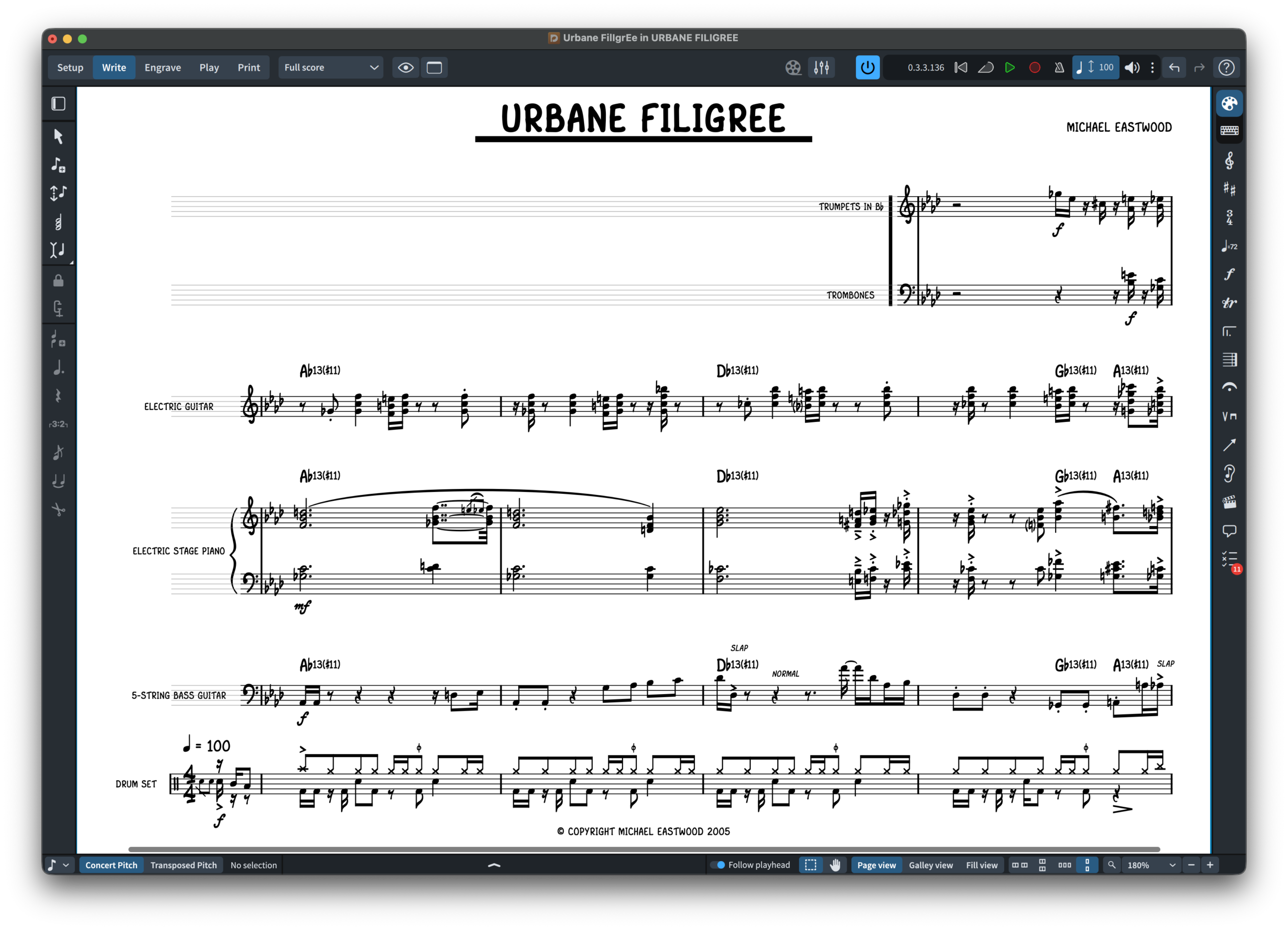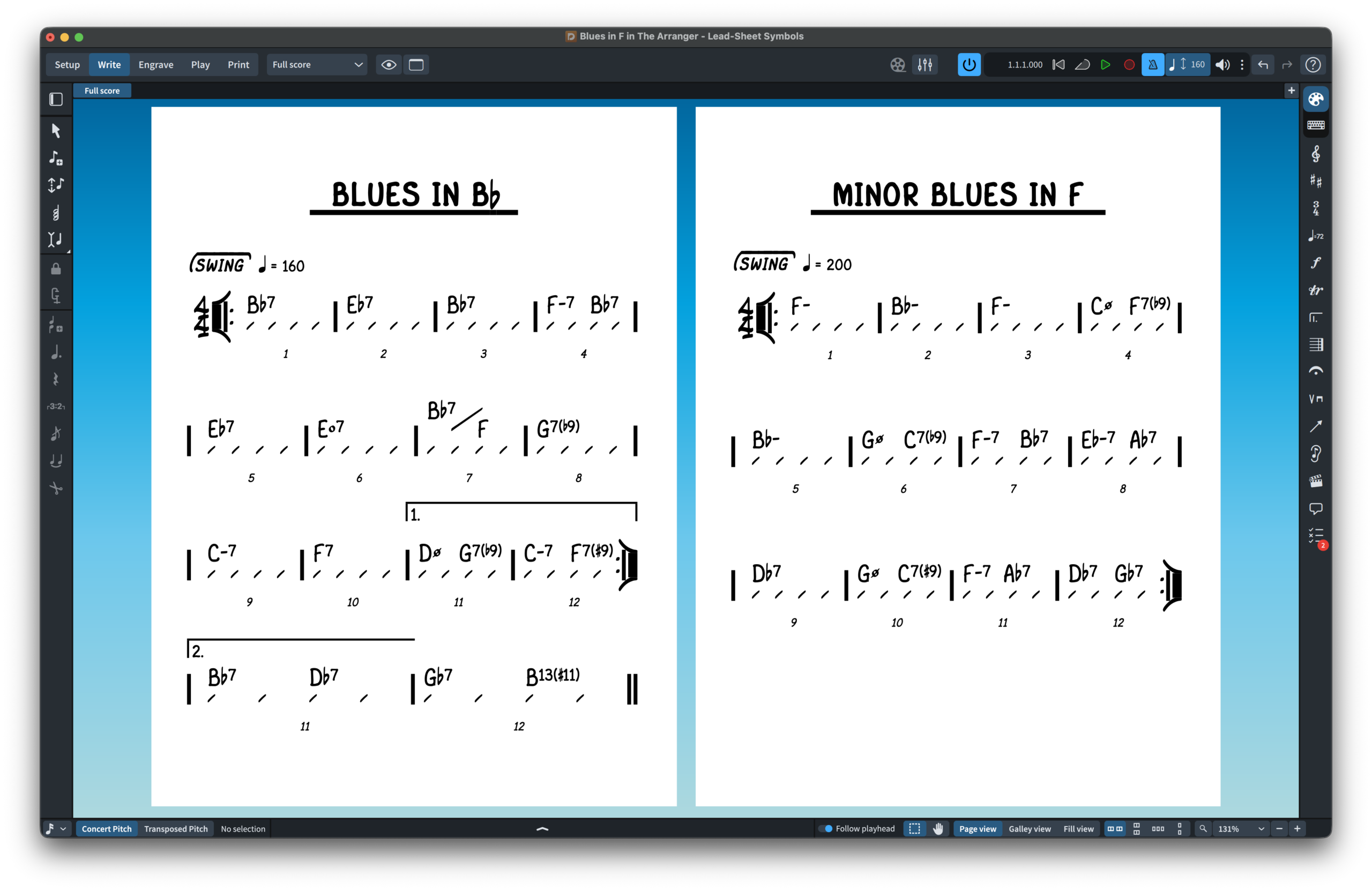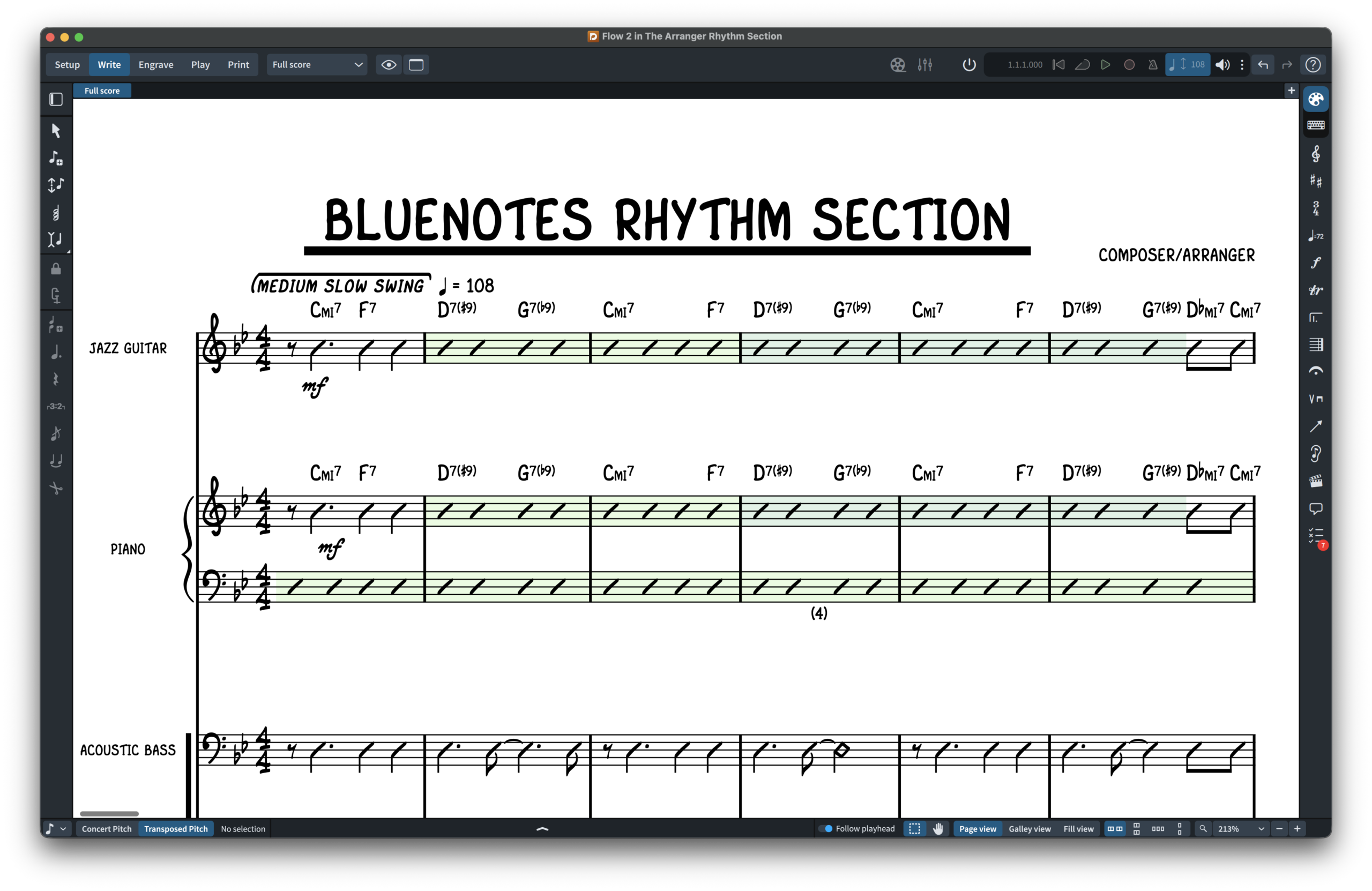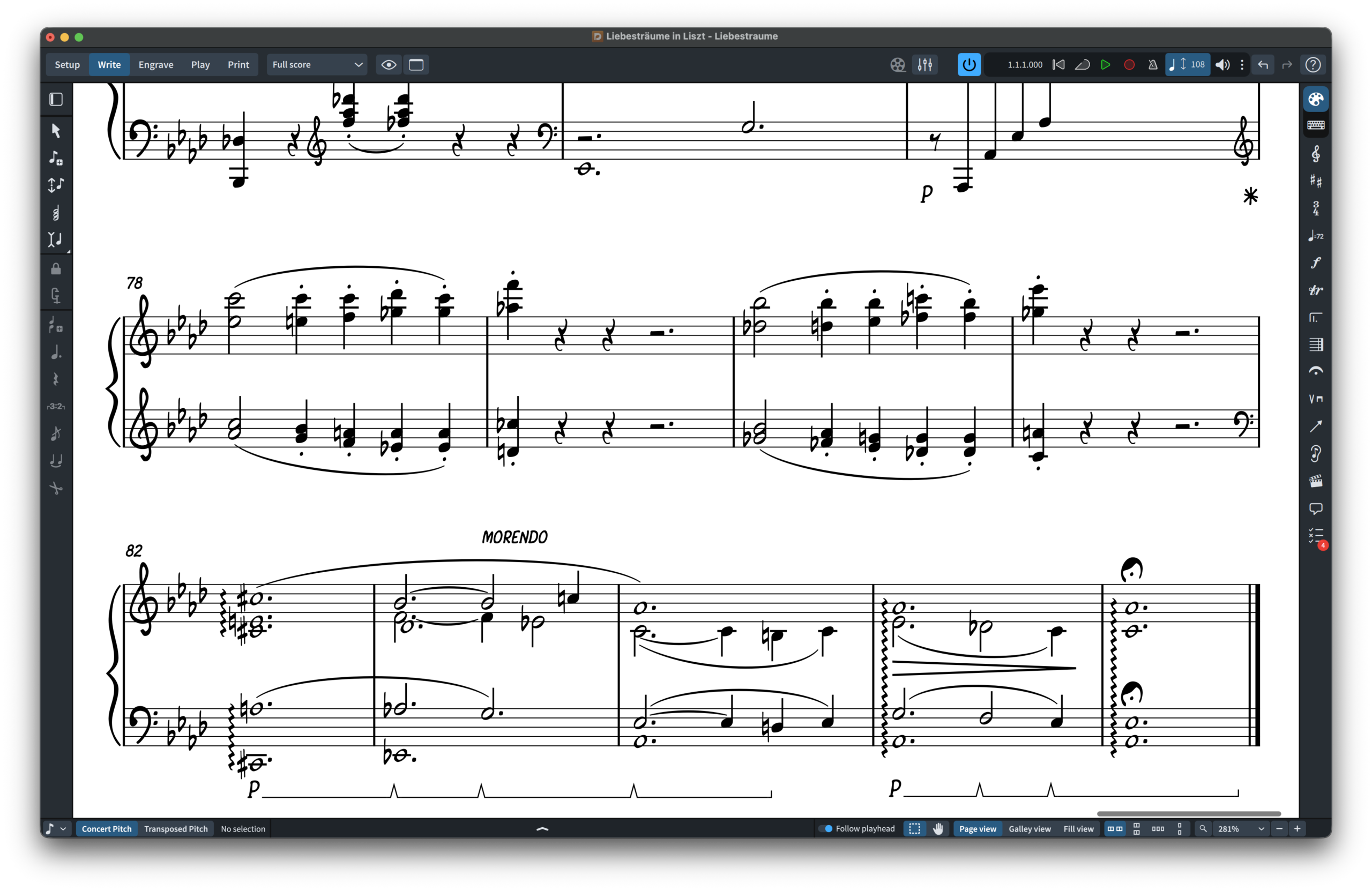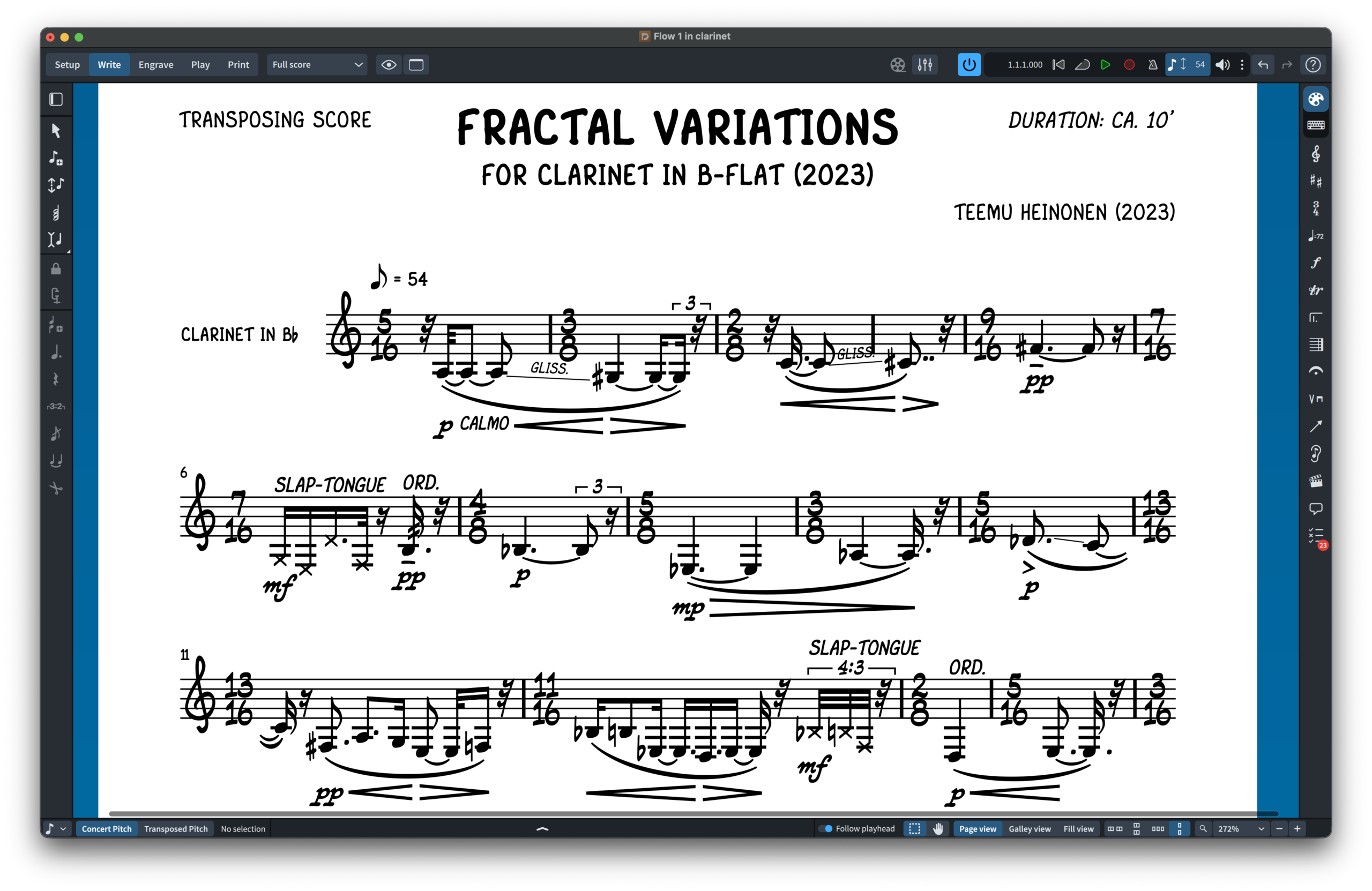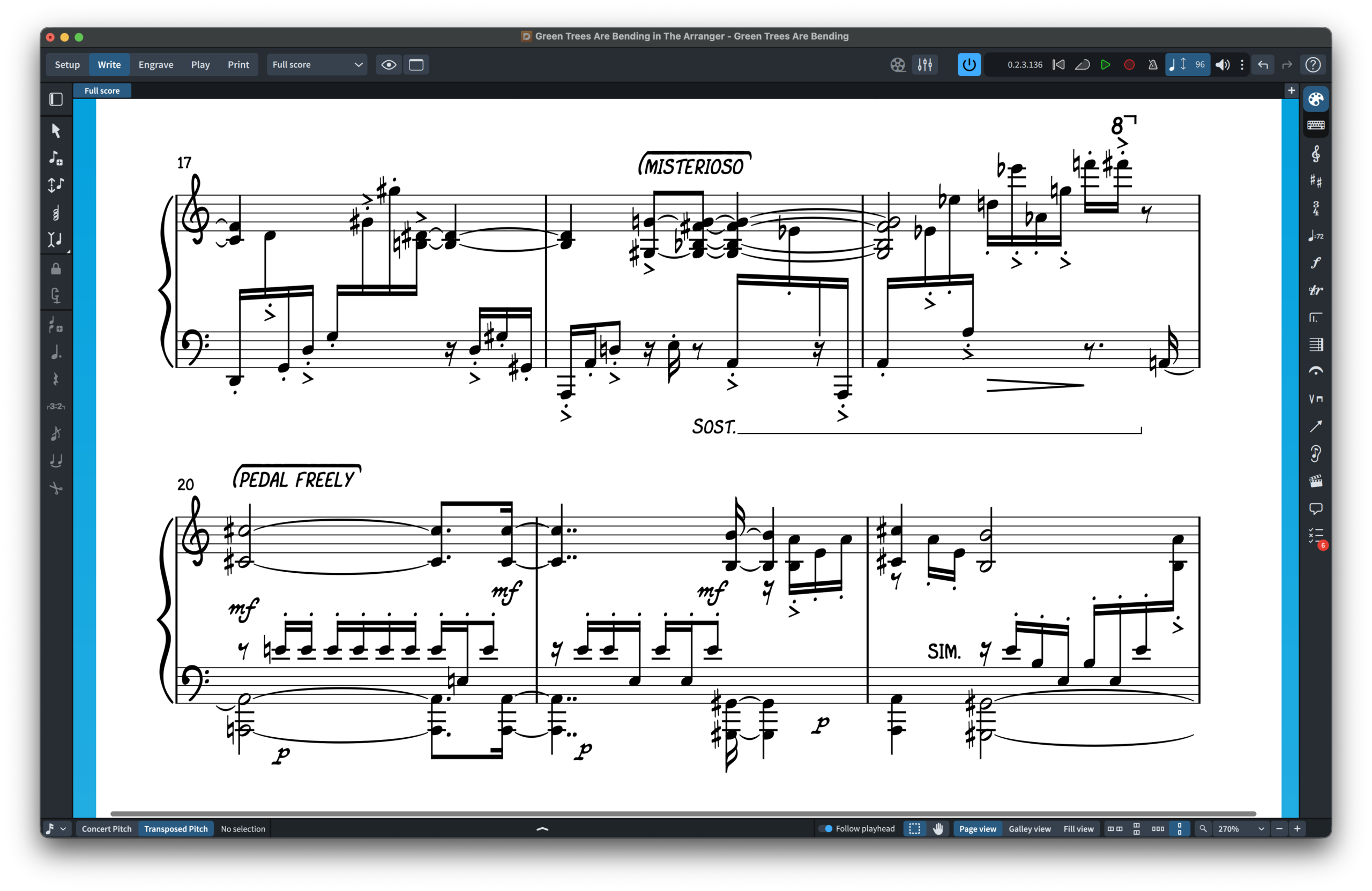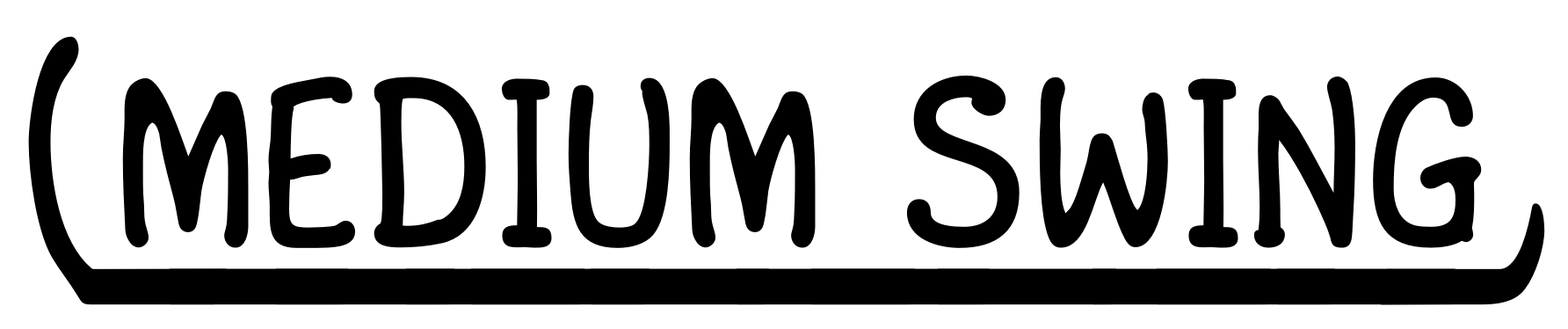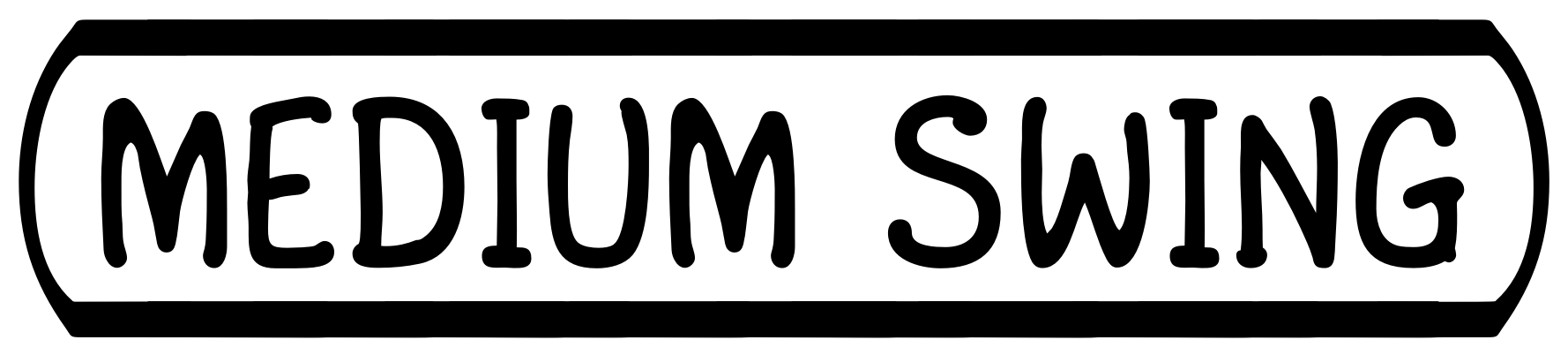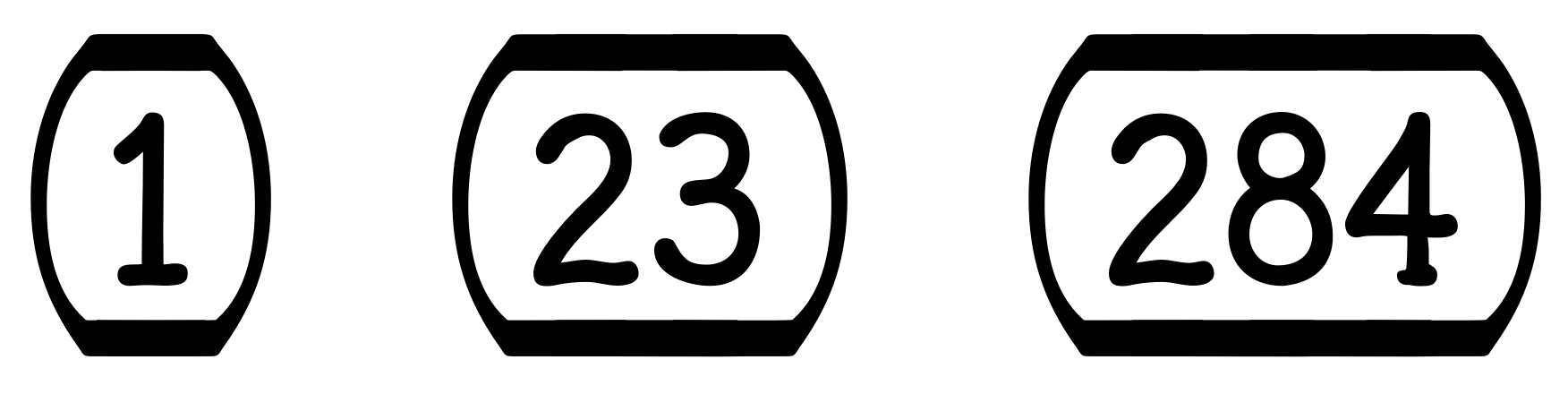
Meet The Arranger: The Handwritten SMuFL Font Your Scores Have Been Waiting For
A brand-new handwritten music font family for Dorico, Finale v27+ and MuseScore 4.6+ — built to give your notation the warmth and personality of classic hand-copied scores.
10 Text Fonts Included
A Score That Feels Human Again
There is something about a hand-copied score that no mechanical font has ever quite captured — the confident ink of a Broadway copyist, the flowing clarity of a jazz chart, and the lived-in personality of a West Coast studio arrangement. The Arranger was built to bring that feeling back.
This is not a novelty font or a stylistic shortcut. The Arranger is a fully professional SMuFL music font family, engineered to work natively inside today’s leading notation software. Every clef, notehead, accidental, articulation and dynamic has been drawn to feel natural together — warm enough to carry personality, clean enough to survive the rehearsal room.
The visual DNA of The Arranger draws from the golden era of Broadway and jazz score preparation — the elegant, practical hand-lettering style of studio copyists who turned out thousands of parts with speed, clarity and unmistakable character. The goal was never mere imitation. It was to distil that tradition into something genuinely usable inside Dorico, Finale and MuseScore today.
Built for the Way You Actually Work
The Arranger is fully focused on modern notation workflows. Install it, select it as your music font inside your notation program, and your entire score immediately adopts the handwritten character — no manual graphic work, no workarounds, no exporting to a design application.
It is compatible with Dorico, Finale v27+ and MuseScore 4.6+, making it accessible to the widest possible range of professional notation users.
Whether you are preparing a jazz big band chart, a Broadway-style pit arrangement, an intimate lead sheet, a rhythm section part or a full concert score with a more personal visual identity, The Arranger gives your notation a distinctive handwritten voice — without ever leaving your software.
Two Weights, One Consistent Voice
The Arranger ships as a family of two SMuFL-compliant music fonts, giving you real creative flexibility depending on the feel of your project.
The Arranger
The main weight. Strong, confident and highly readable — ideal when you want the full bold presence of a professional Broadway or studio copyist. This is the font that owns the page.
The Arranger Lighter
A more refined and open interpretation of the same character. Perfect when you want a lighter handwritten texture — spacious, elegant and suited to more intimate or delicate scores.
Both PDF samples use the same musical material so you can compare page colour, texture and visual weight directly.
10 Matching Text Fonts — A Complete Score Style
Most notation fonts only replace the music symbols. The Arranger goes further. The package includes 10 matching jazz-style text fonts designed to work alongside the music notation fonts and keep your entire score visually coherent.
Titles, tempo markings, rehearsal marks, boxed instructions and performance directions can share the same handwritten personality as the notation itself. The result is a complete score style, not just a font swap.
Example 4 — Matching text and boxed markings. Tempo indications, rehearsal marks and boxed score instructions all share the same handwritten personality as the notation.
This is especially valuable in jazz, musical theatre and commercial music, where the visual relationship between notation and written text is a defining part of the score’s style and identity.
Rooted in the Broadway and Jazz Copyist Tradition
The Arranger draws its spirit from the rich tradition of hand-copied music — particularly the elegant, fast and deeply practical approach of Broadway score preparation, studio charting and jazz arranging from the mid-twentieth century onward.
Every symbol has been shaped to feel like it belongs with the others. The notation has movement and personality, but it stays clear enough for performers, conductors and editors to read under any conditions.
Where The Arranger Shines
The Arranger is an especially strong choice for any project where warmth, personality and a human touch matter as much as technical precision.
- Jazz ensemble scores
- Broadway-style arrangements
- Lead sheets
- Rhythm section parts
- Concert works with handwritten character
- Educational scores and exercises
- Modern arrangements needing warmth
- Method books and publishing projects
Voice & Piano
Long phrases, lyrical slurs and expressive markings in an intimate setting.
Contemporary Notation
Detailed gestures and expressive symbols for modern concert music.
Large Ensemble
Consistent, readable notation across multiple staves in a full score view.
Because the package includes both the music notation fonts and the matching text fonts, you can build a complete handwritten score aesthetic — not just swap out the note symbols.
Ready to Give Your Scores a Handwritten Voice?